Ear
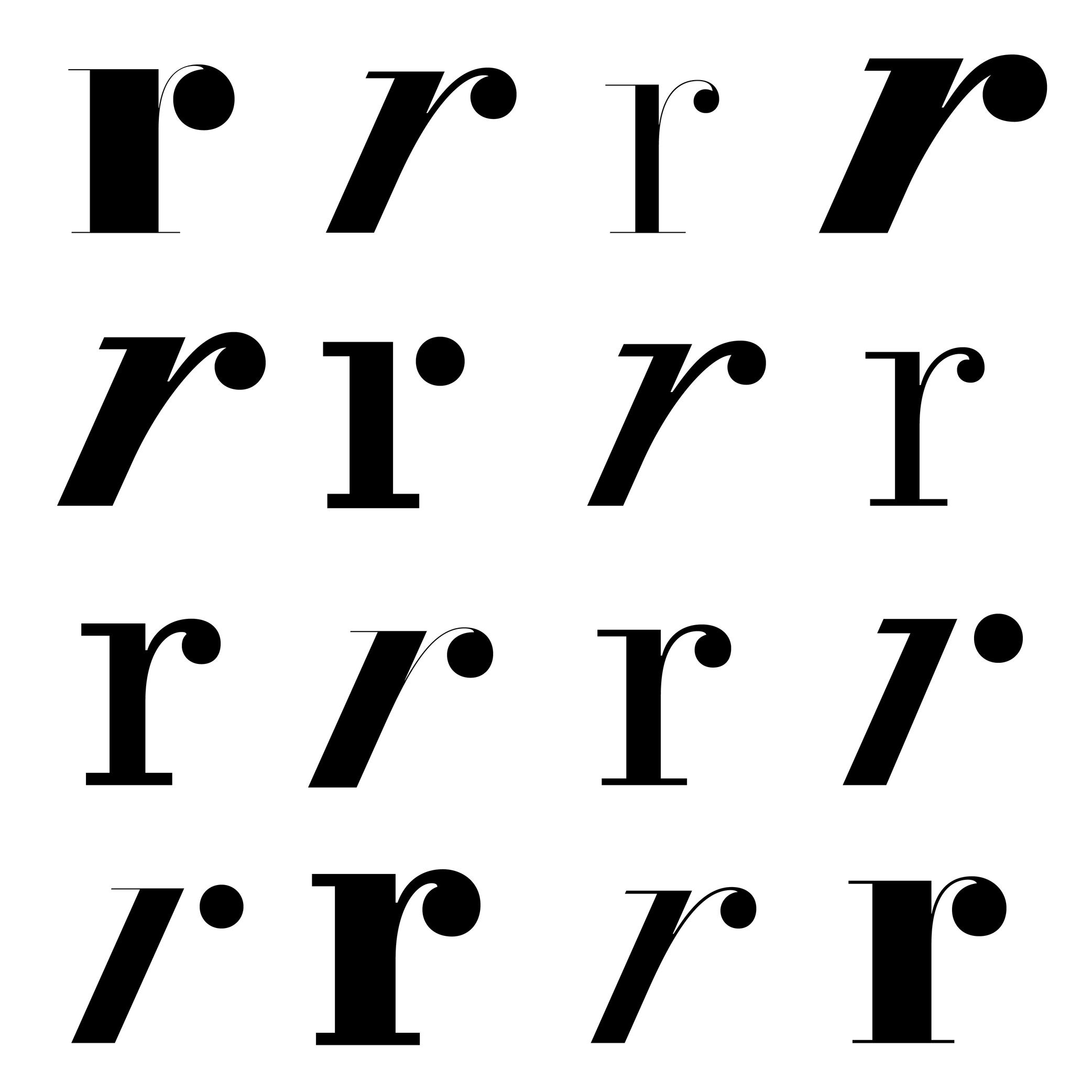
Many terms are borrowed from architecture or human and animal anatomy to designate and describe parts of letters and other characters. We even speak of type design anatomy.
In the Latin script, the ear refers to the top-right hanging part of letters like the r, f or the double-storey g.